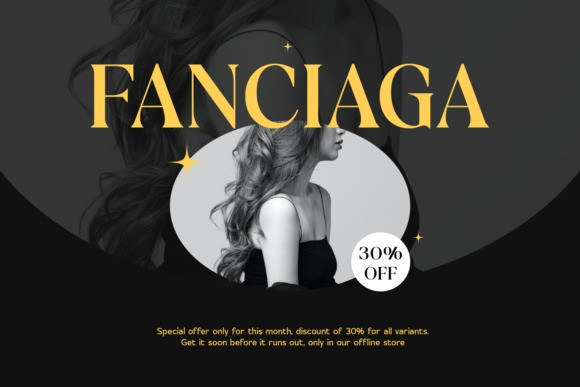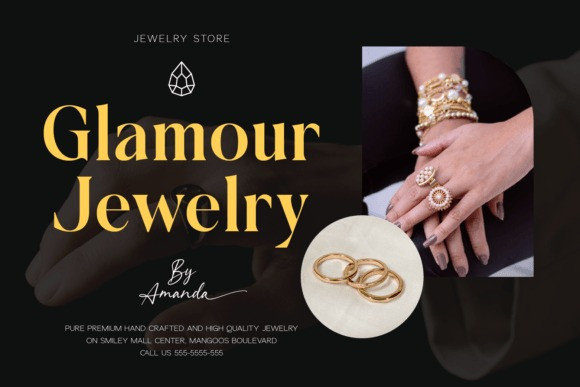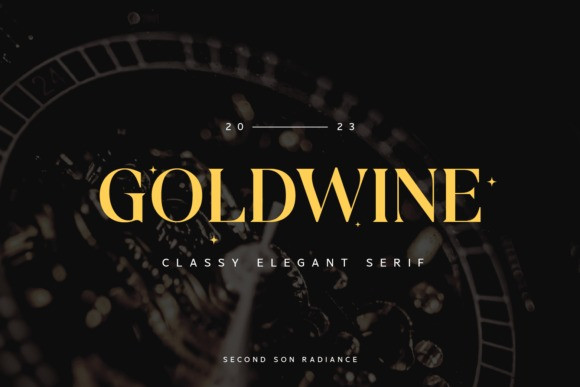
Goldwine Font
Goldwine Font is a sophisticated, charming serif font with a fashionable touch. This font is perfectly suitable for any design needs such as logos, branding, modern advertising design, holiday and traveling designs, fashion and music, animation or movie title, poster quote, book / fantasy novel cover title, editorial design, website / blog, card, and more.